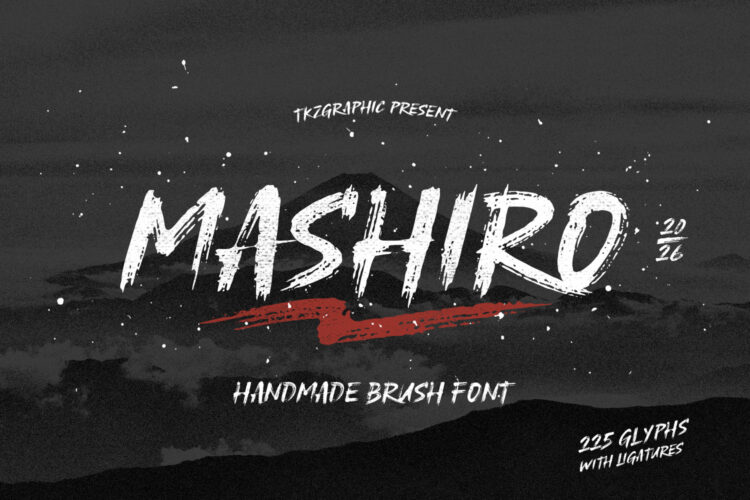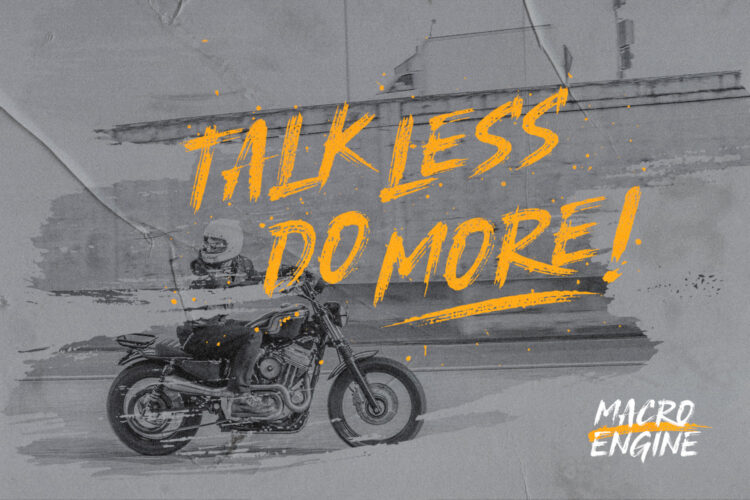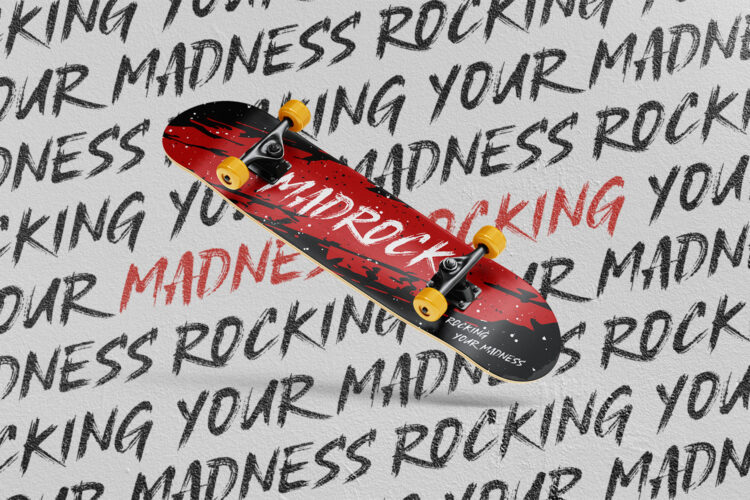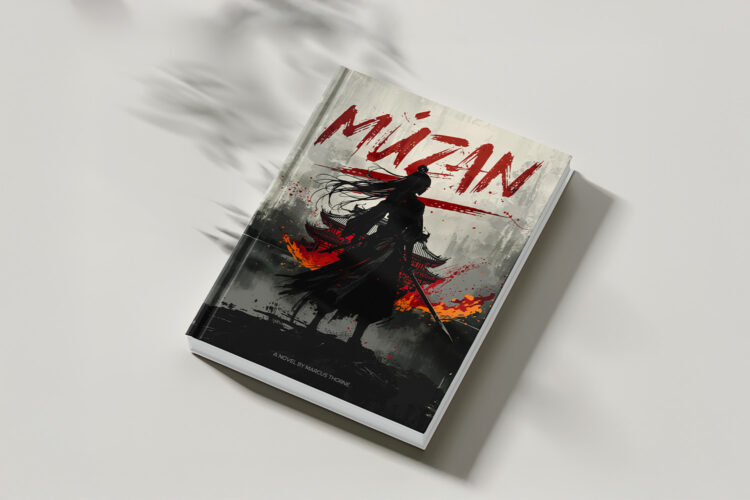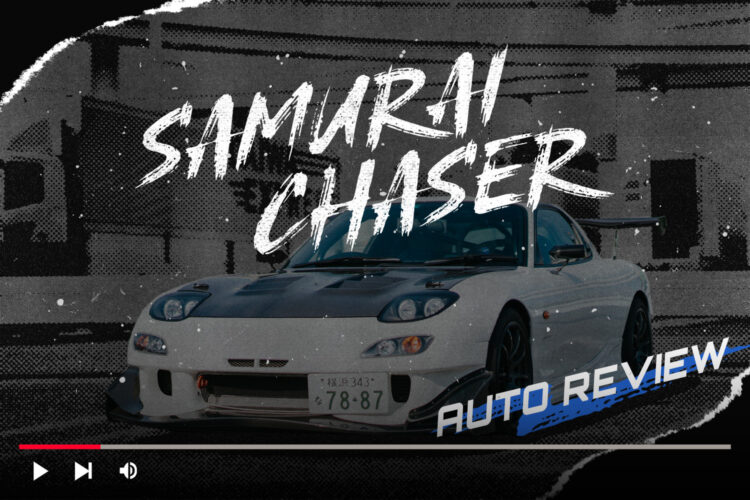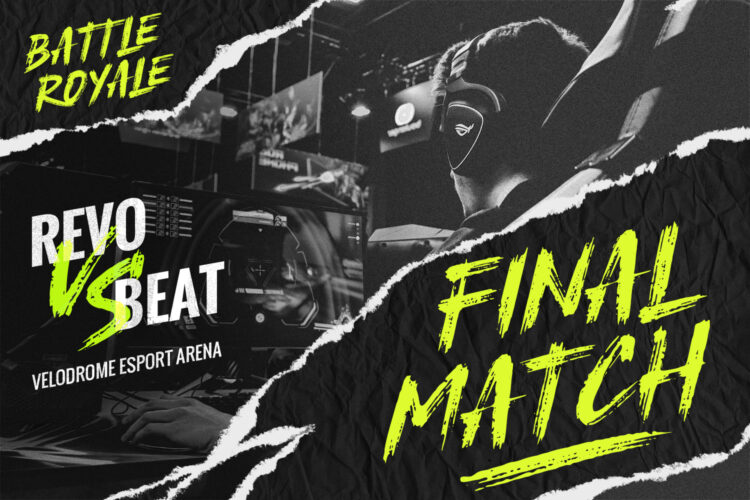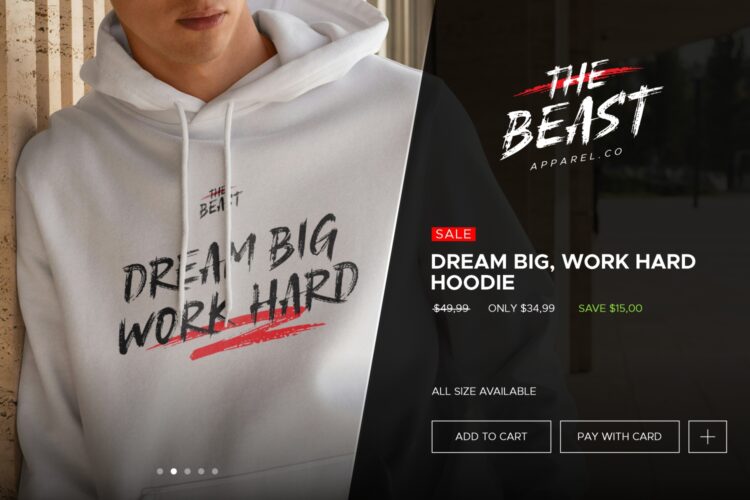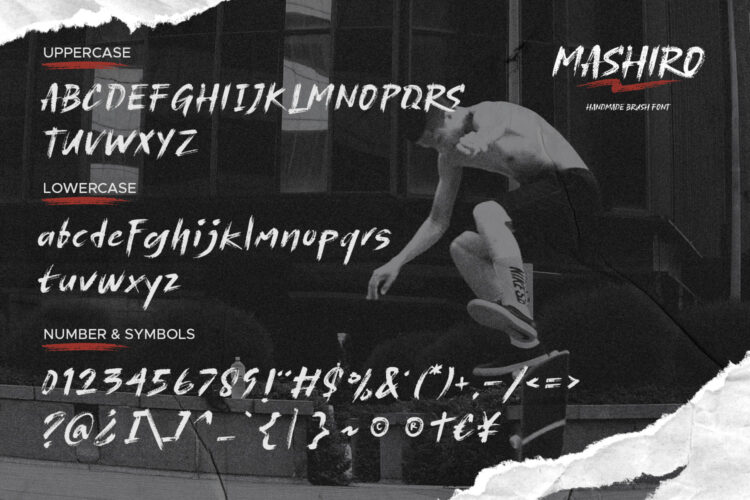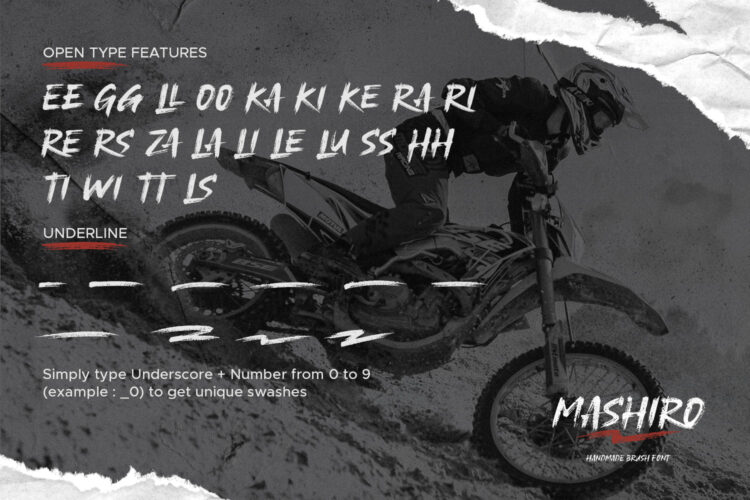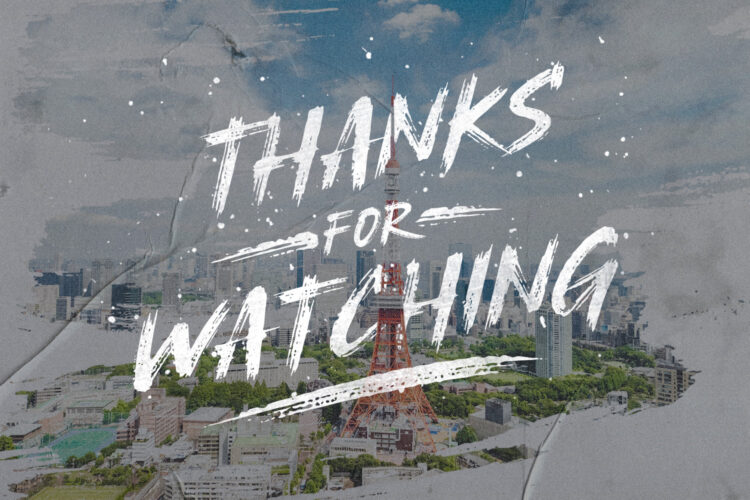
MASHIRO
Mashiro is a hand-drawn brush font inspired by the bold look of Japanese calligraphy. It features a realistic dry brush texture and ligatures that gives every letter a raw, handmade feel. You can easily add extra style to your words by typing an underscore and number from 0 to 9 (example: _1) to create unique, hand-painted swashes.
This font is a perfect choice for logos, t-shirts, posters, movie or game title and branding. Its rough, detailed edges look best in large sizes, helping your titles grab attention and stand out. Whether you are working on a traditional or a modern brand, Mashiro adds a strong, artistic personality to your work.
Mashiro – Handdrawn Brush Font